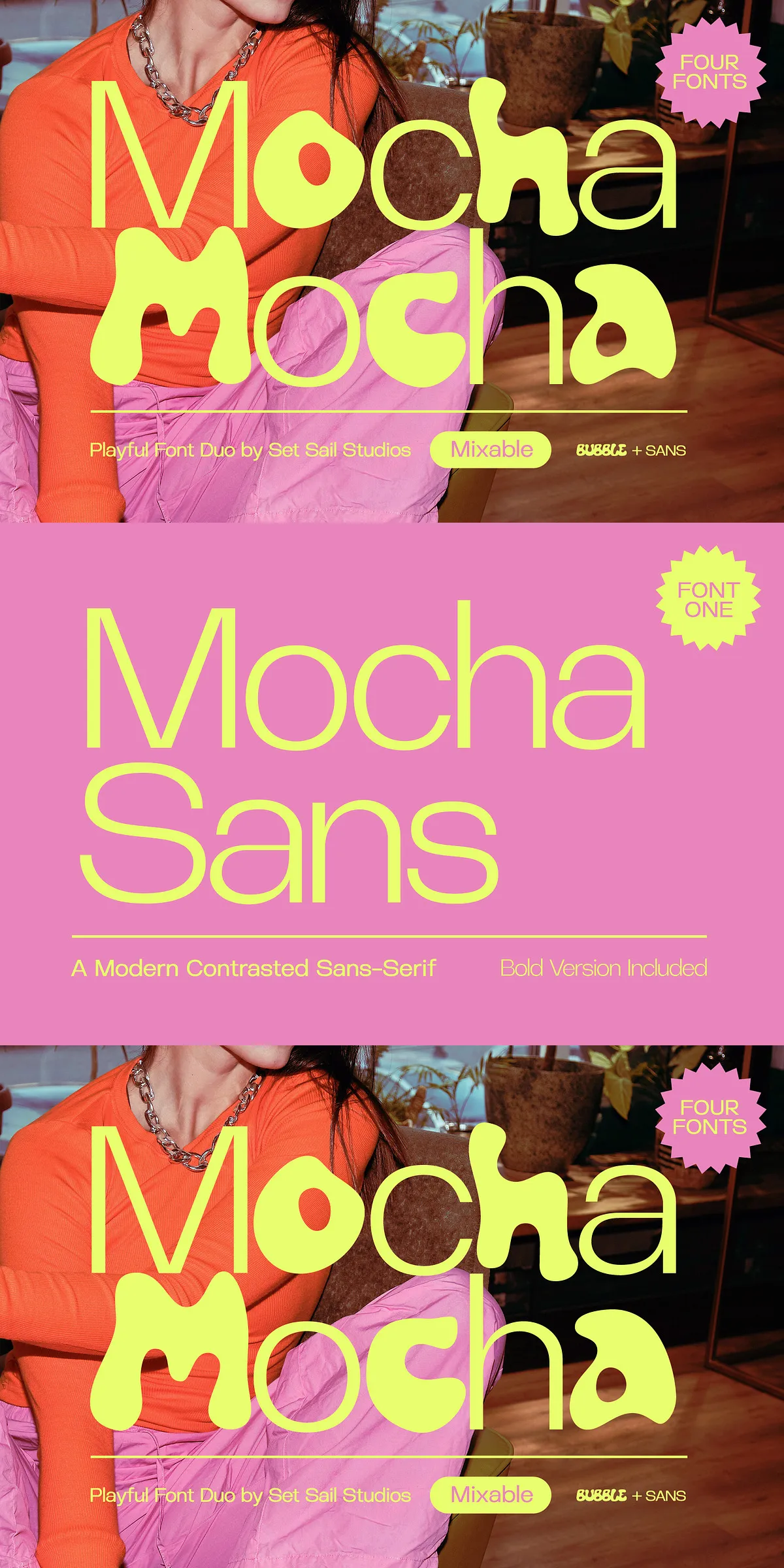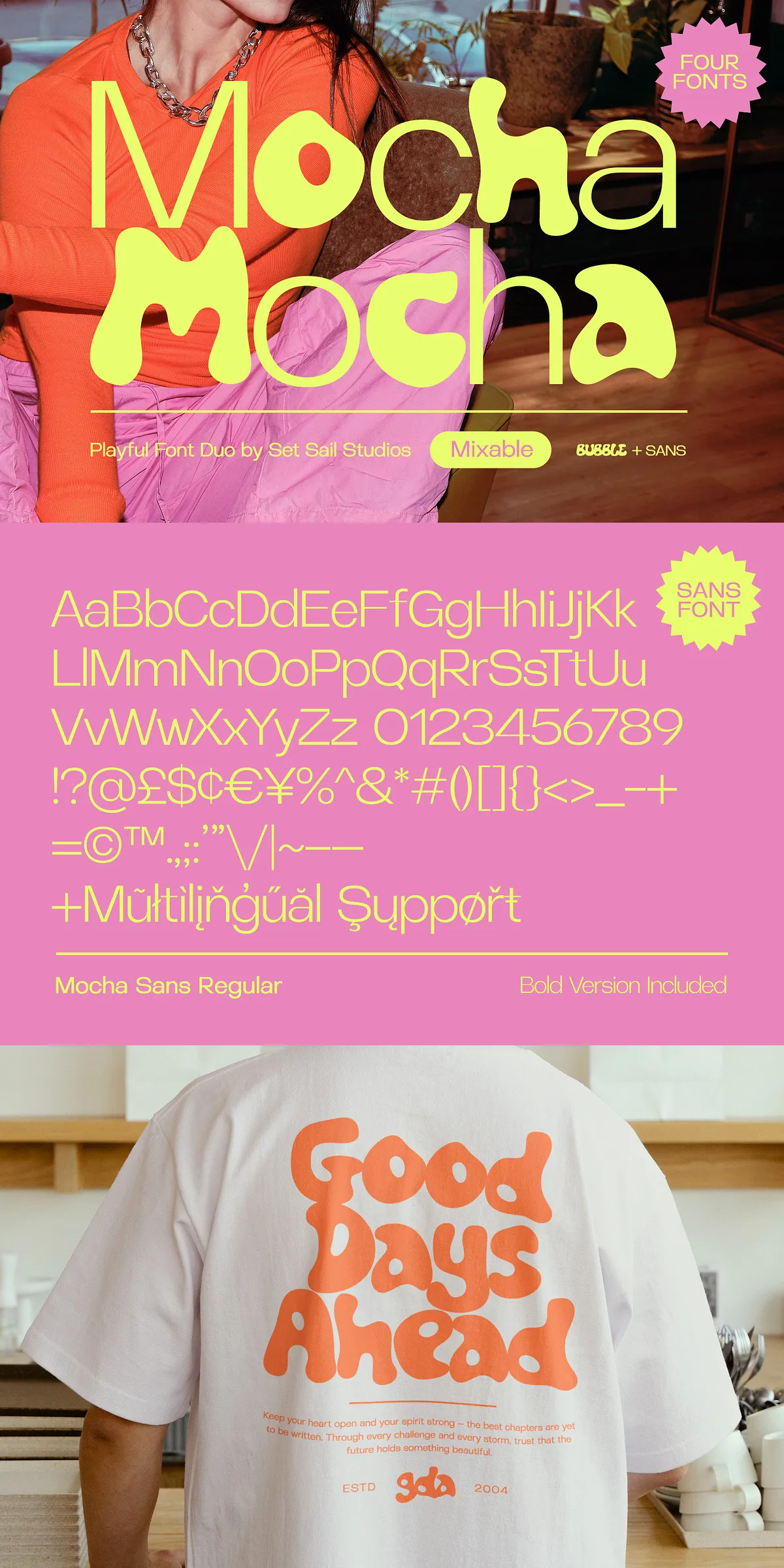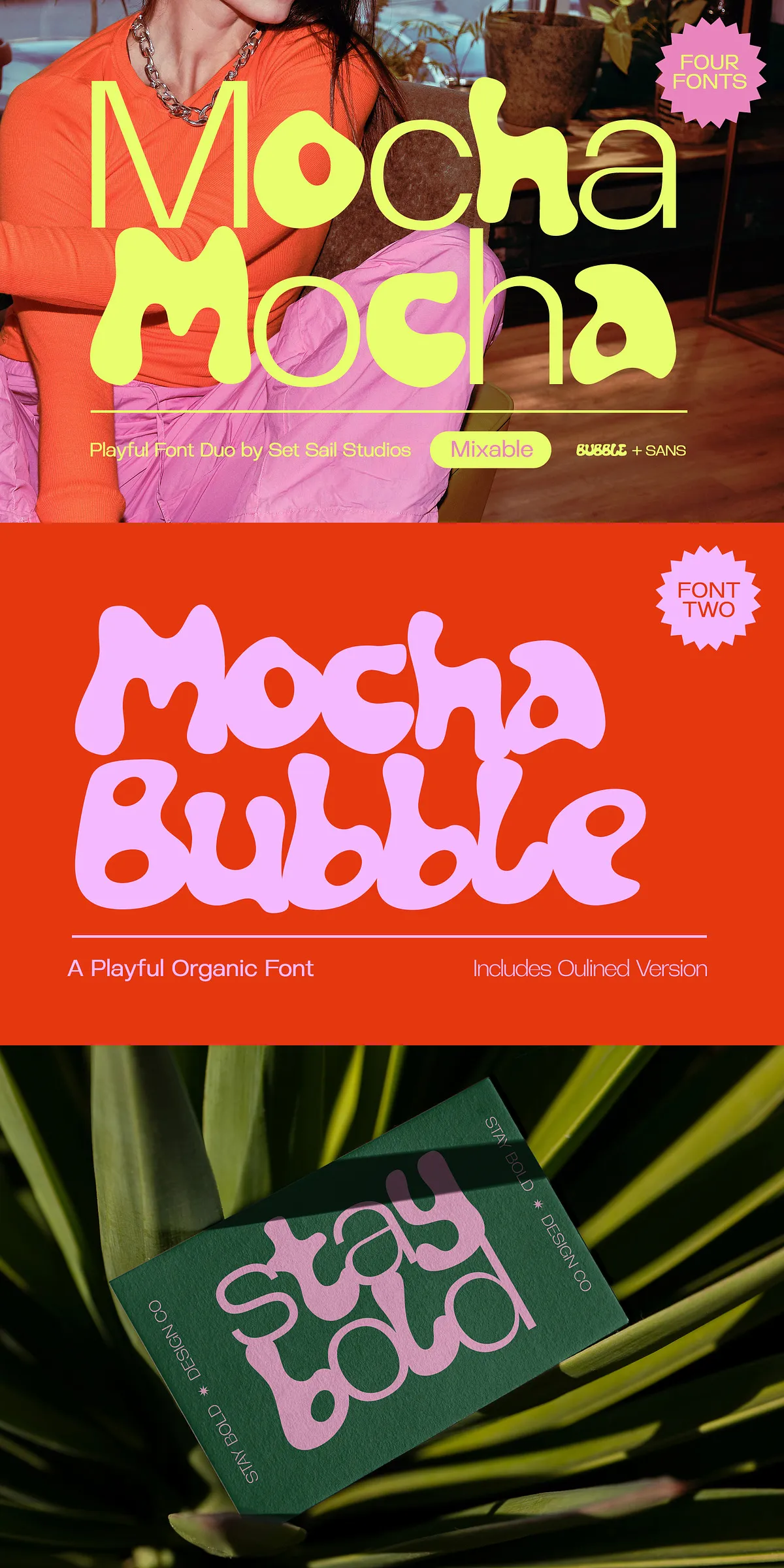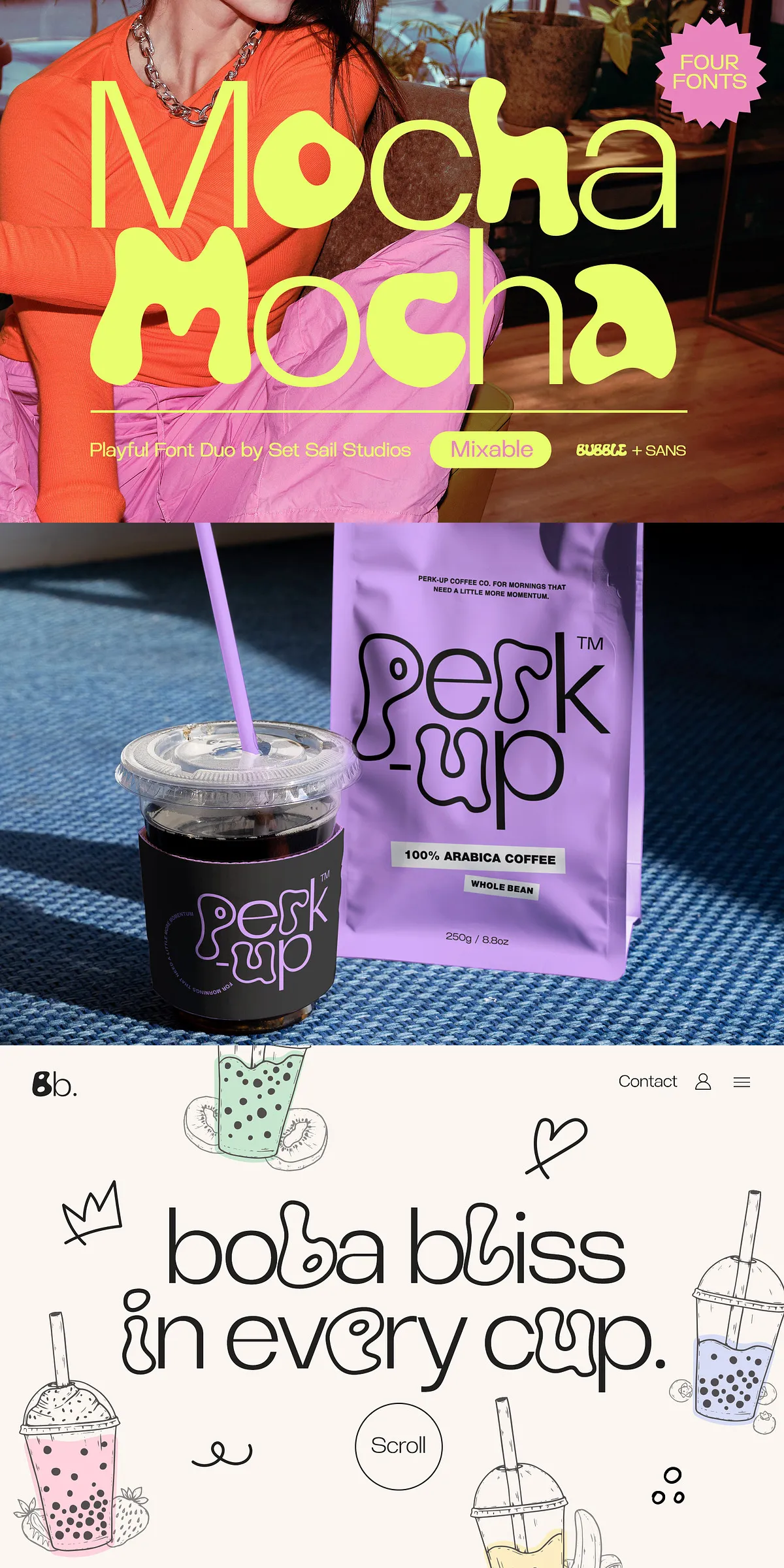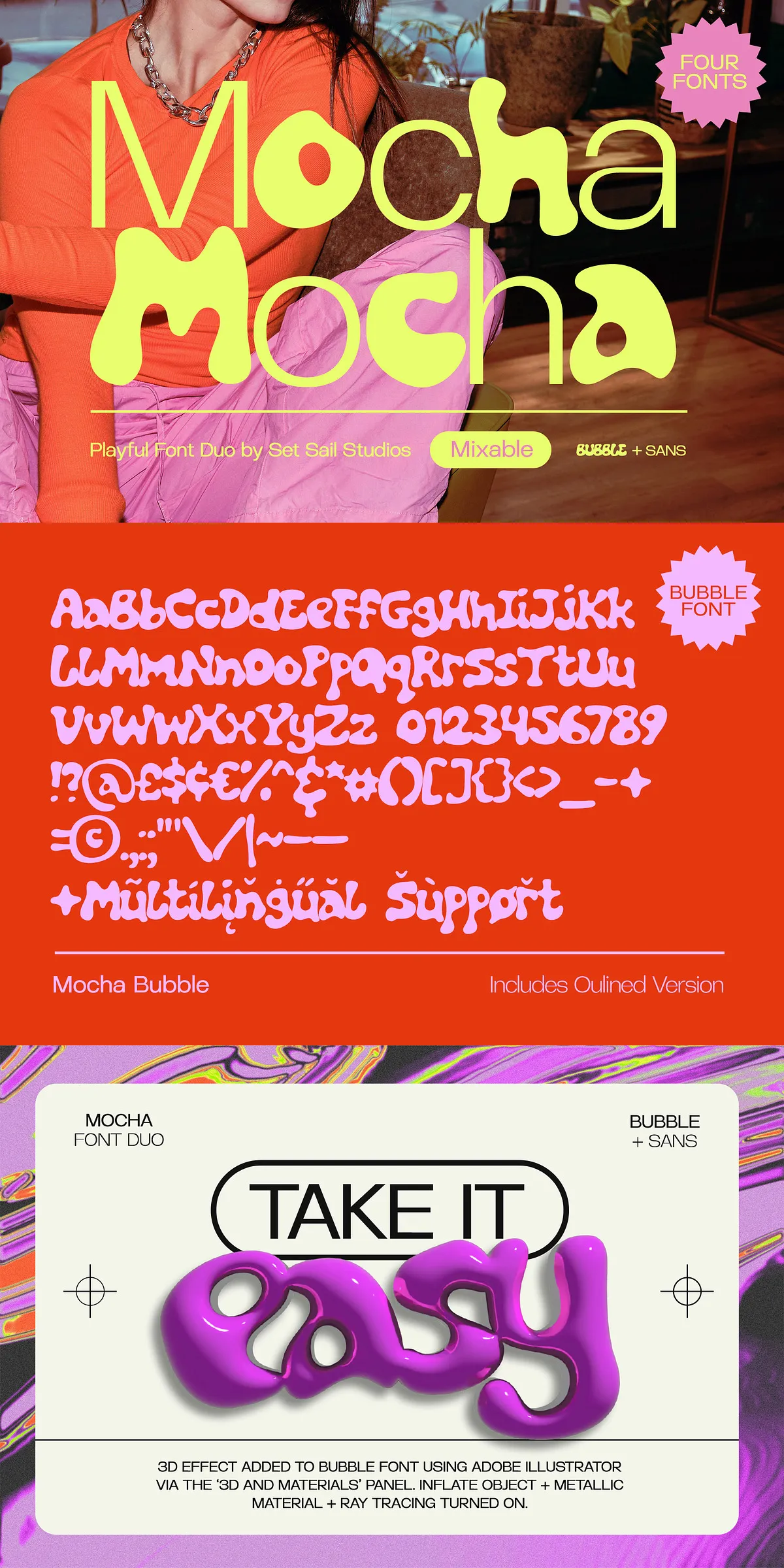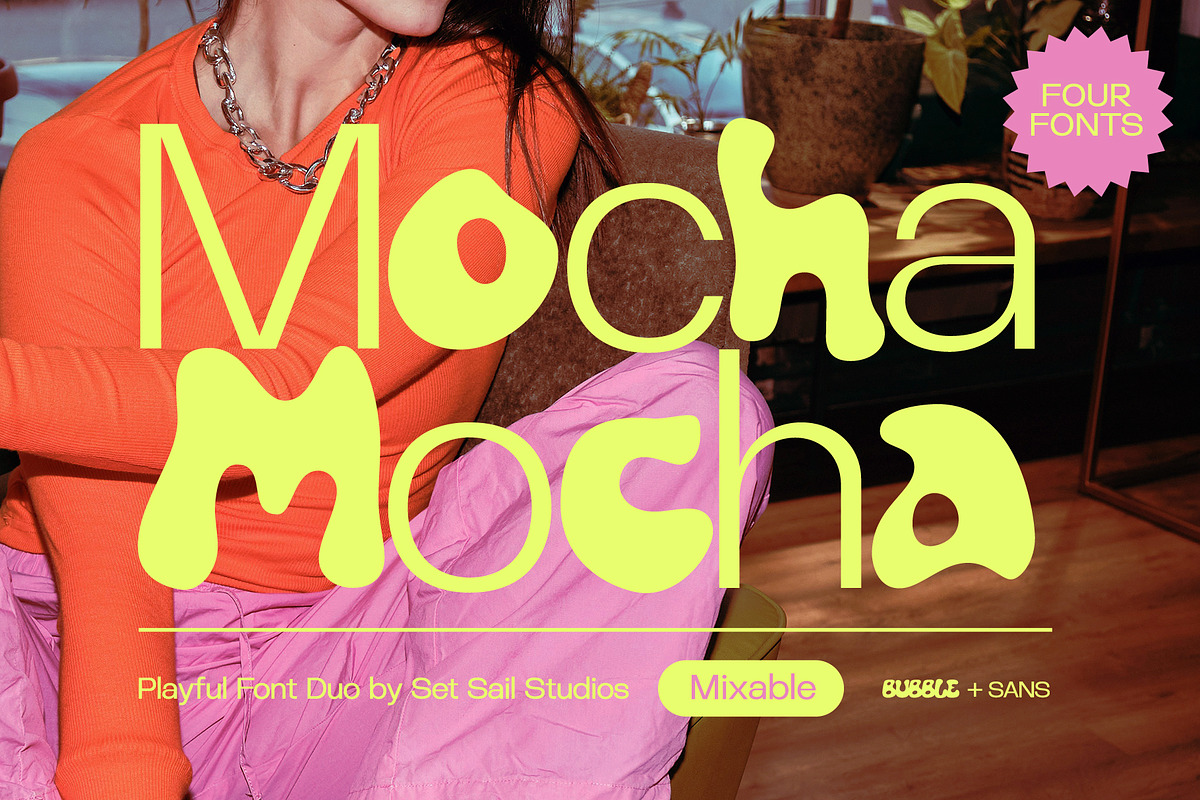
Mocha Bubble+Sans Font Duo
Step into a world where every letter dances, every word sparkles, and every design bursts with energy. Welcome to the Mocha Font Duo — a bold, modern, and refreshingly fun typeface pairing that’s ready to revolutionize your next creative project. From vibrant social media post designs to eye-catching event posters and playful brand identities, this duo was built to bring joy, rhythm, and unforgettable visual impact to your work.
Designed for Contrast, Built for Harmony
What makes the Mocha Font Duo truly special? It’s not just two fonts — it’s a dynamic conversation between styles. The Bubble font delivers soft, rounded, bouncy shapes with a carefree, whimsical feel, perfect for messages that need to feel light, friendly, and inviting. Meanwhile, the Sans font brings clean, confident lines with a modern edge, offering structure without stiffness.
• Weight Contrast — Bold Bubble meets sleek Sans for dramatic visual rhythm.
• Proportional Harmony — Same height and width ratios ensure seamless pairing.
• Complete Independence — Each font shines on its own — perfect for minimalist layouts or single-element design moments.
But the real magic? It happens when you mix them.
Unlock Creative Possibilities: The Art of Mixing
Imagine a headline where “Mocha” is in Bubble, and “Duo” is in Sans — instantly more engaging, more balanced, more memorable. Or blend them within a single word using different styles for each syllable. The combinations are infinite, and the results are always on-brand, on-trend, and irresistibly fun.
With two bold weights and two outlined variants in the full 4-font set, you aren’t just choosing fonts — you’re choosing design tools. Use the outlines for high-impact posters. Use the bolds for headlines that demand attention. Use the lighter versions for clean captions or layered compositions.
Built for Real-World Design, Not Just Screenshots
These fonts weren’t made just to look good in a portfolio — they were engineered for action. From web headers and UI elements to print ads and packaging, the Mocha Font Duo delivers consistency, clarity, and personality at every scale.
Perfect For:
• Brand Identities — For lifestyle brands, cafes, fashion lines, or creative agencies that want to stand out with personality.
• Social Media Content — Perfect for Instagram stories, TikTok graphics, and Facebook posts that need fun, attention-grabbing text.
• Event & Festival Posters — Ideal for music events, art fairs, pop-up markets, or anything with a celebratory, energetic vibe.
• Children’s Books & Educational Materials — The playful nature of the Bubble font makes it ideal for young audiences.
• Merchandise & Packaging — T-shirts, mugs, tote bags, and more — make your products look like they’re smiling.
Full Feature Support for Maximum Flexibility
Designed with the modern creator in mind, the Mocha Font Duo comes with full OpenType support, including:
• Stylistic Alternates — Discover unique variations for letters like ‘a’, ‘g’, ‘m’, and more.
• Ligatures — Smooth, professional-looking connections for words like “love” and “fun”.
Let Your Design Talk — Loudly, Clearly, Playfully